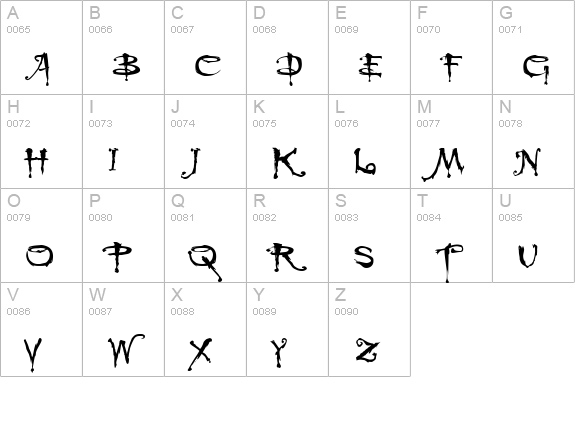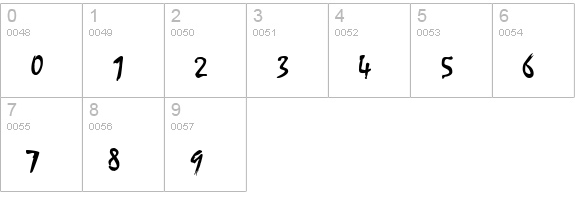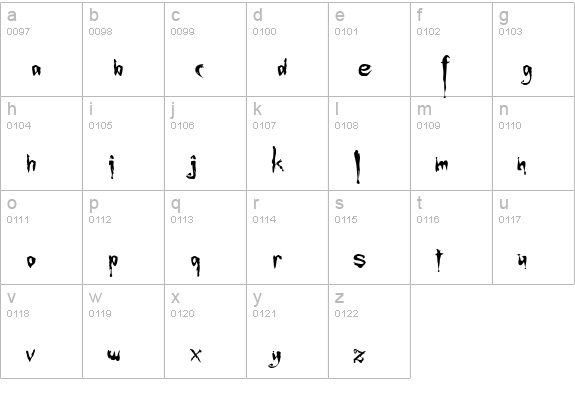
Buffied Font Details
Introducing Buffied, a charming and playful font that captures the essence of casual elegance. With its unique blend of whimsy and sophistication, Buffied is the perfect choice for projects that require a touch of personality and individuality. This delightful font is meticulously crafted to ensure every curve and line is just right, resulting in a truly eye-catching design. Whether you're creating invitations, branding materials, or social media graphics, Buffied will effortlessly elevate your work to new heights. But what truly sets Buffied apart is its accessibility. We believe that everyone should have access to quality fonts without breaking the bank. That's why Buffied is available for free download at FontsMarket.com. Yes, you read that right – free! Now, you can add that extra touch of magic to your projects without any cost. So why wait? Download Buffied today and let your creativity soar. With its delightful charm and freely available nature, this font is sure to become a staple in your design toolkit. Embrace the beauty of Buffied and watch as your designs come to life with a touch of whimsy and elegance.